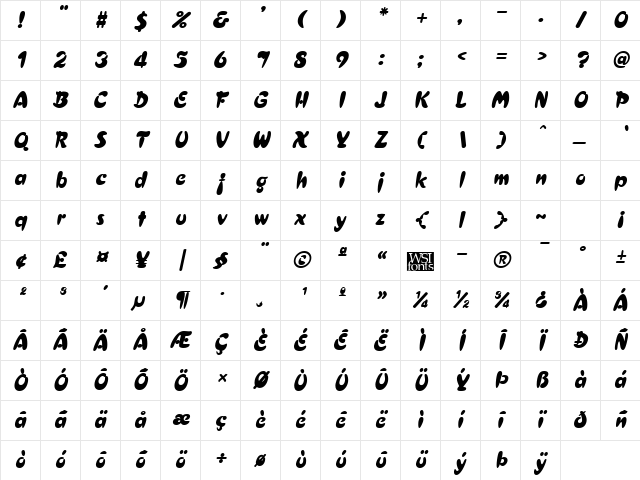
Cressida kursiv Free Font
Cressida kursiv
Style: kursiv
Design Context for Cressida
Cressida is a composed and adaptable typeface that performs quietly and consistently across a wide range of design contexts. The slanted form adds forward momentum and visual energy.